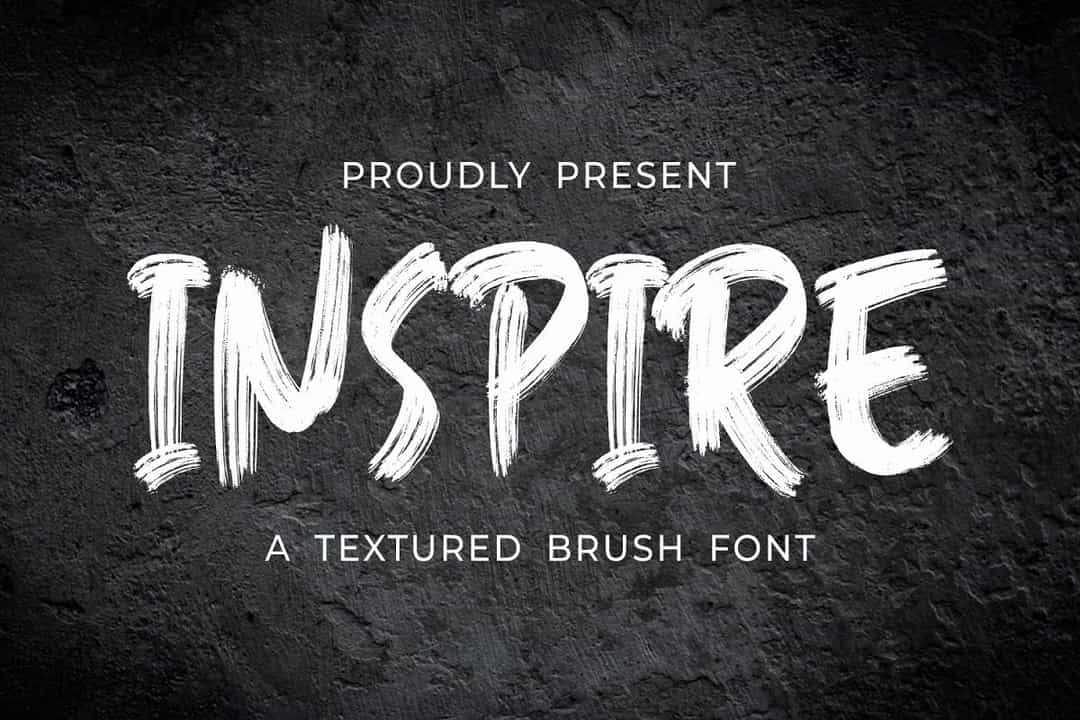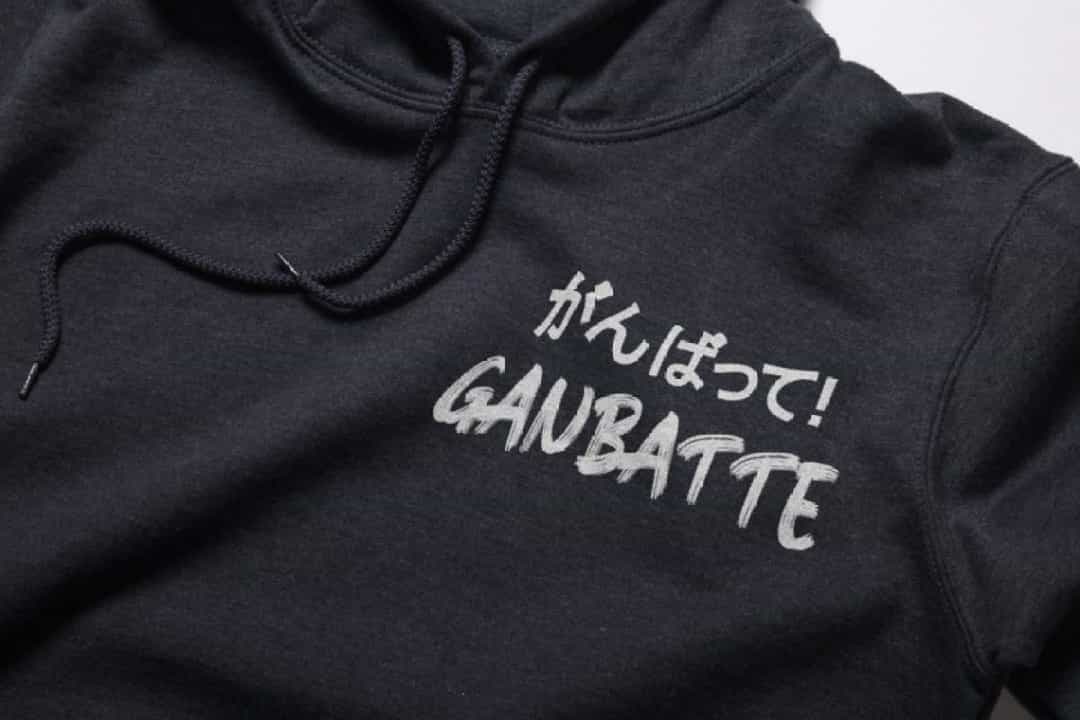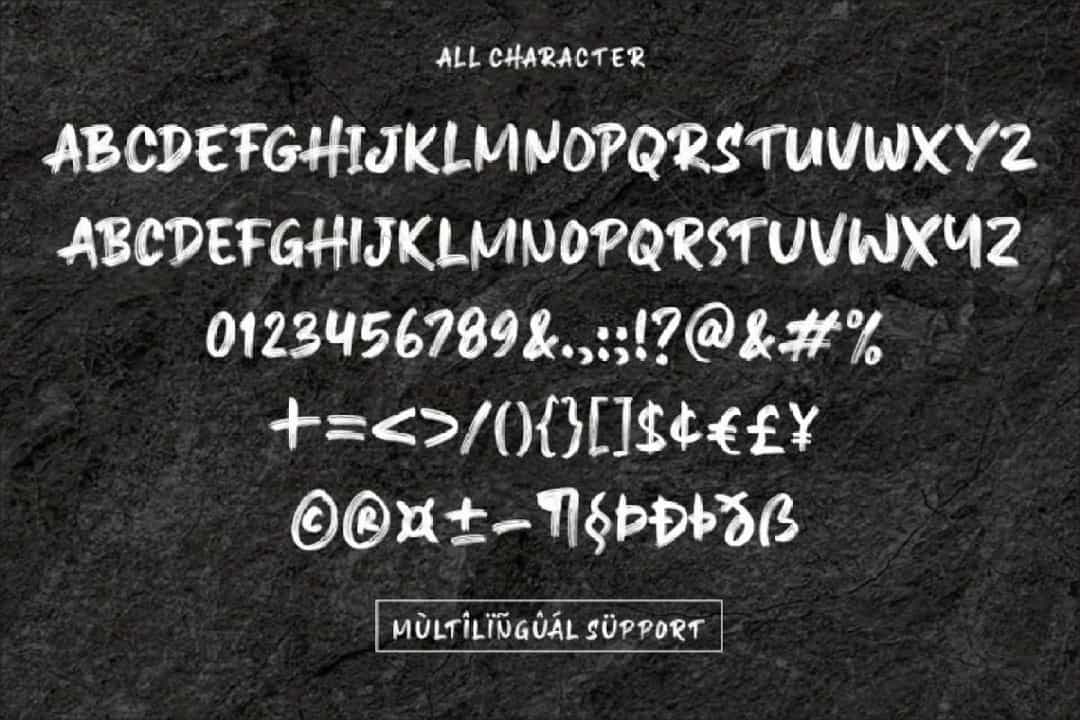
Mozatype designed Inspire Font as a handwritten typeface featuring aggressive and rough text with dry brush textures for an authentic appearance in any work! This font also provides contrast between opaque and transparent forms, giving your work an impressively realistic appearance! Procreate was used to craft this playful display font with its contemporary yet modern aesthetic that will work beautifully across many styles and occasions.